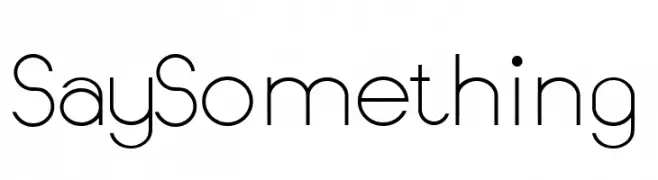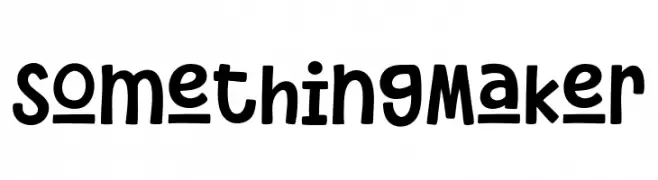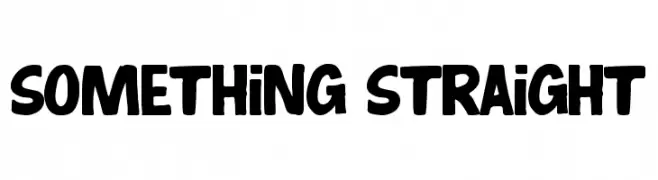
A playful, whimsical script font with a handwritten, cursive style.
A casual, fluid handwritten font with smooth, flowing lines.
A modern, geometric font with clean lines and a minimalistic style.
An elegant and flowing script font with smooth, cursive strokes.
A whimsical script font with flowing, interconnected letters and decorative loops.
A bold, energetic script font with a handwritten feel.
A bold, sketch-style font with a hand-drawn, textured appearance.
A playful, bold handwritten font with rounded, uniform strokes.
A playful, bold font with a hand-drawn, whimsical style.
A bold, rounded font with a playful and informal style.